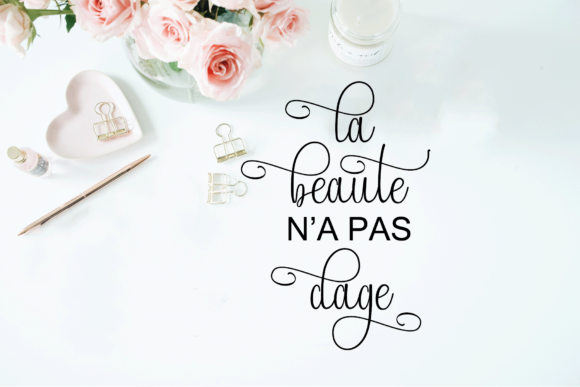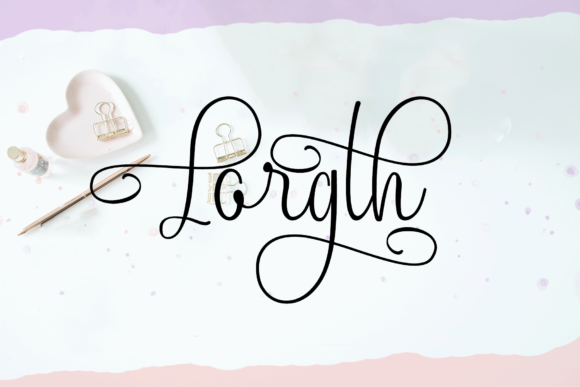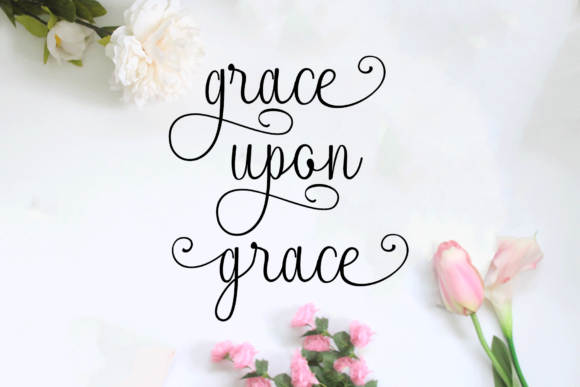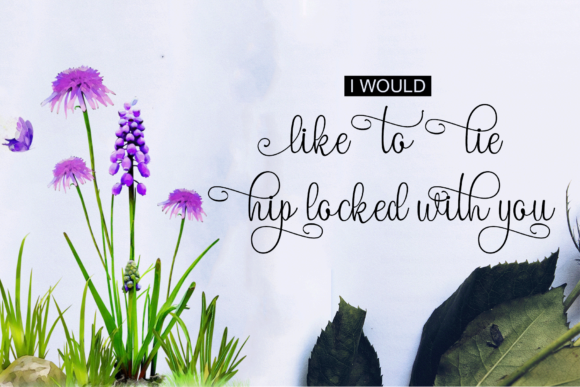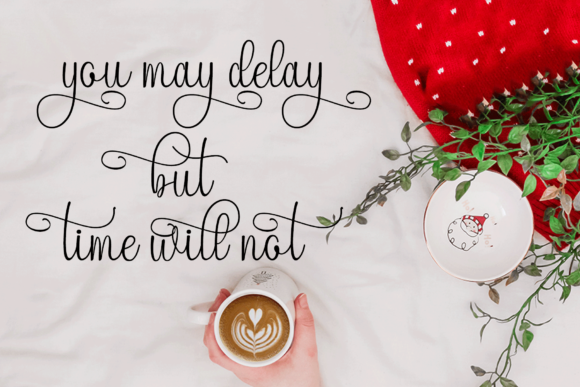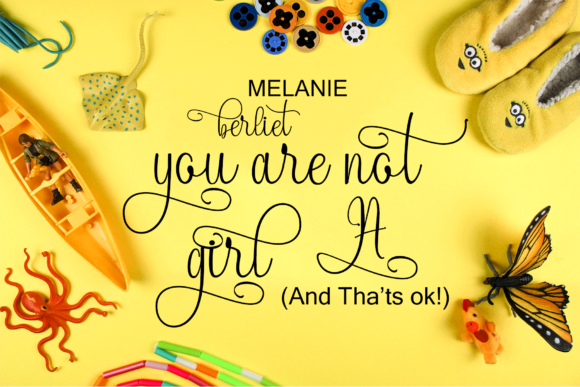
Introduction to Lazortha Font
Have you ever stared at a blank canvas, waiting for inspiration to strike, only to have your creativity sparked by a single, elegant letter? That’s exactly what happened to us when we discovered the Lazortha Font. This modern and unique handwritten font is a game-changer for designers looking to add a touch of sophistication to their creative projects.
| 📌 Product Name | Lazortha Font |
| 👤 Author | Rt Creative |
As a valuable design resource, Lazortha Font offers high-quality, customizable options that can elevate any design. Whether you’re working on a personal project or a commercial campaign, this font’s swashy look is sure to captivate your audience. And the best part? It’s available for free download with a transparent background, making it easy to integrate into your design workflow.
Key Features of Lazortha Font
- High-quality design resource ideal for creative projects, including graphics, logos, and typography.
- Unique, modern design with a transparent background, allowing for easy layering and customization.
- Perfect for use in digital design projects, such as web design, mobile app development, and social media graphics.
- Can be used in conjunction with other design elements, such as images and vectors, to create visually striking compositions.
Honest Review: Lazortha Font
I recently had the opportunity to work with the Lazortha Font, and I must say it’s been a pleasant experience. As a designer, I’m always on the lookout for high-quality design resources that can elevate my creative project to the next level.
Here are some things that I think work well with the Lazortha Font:
- ✨ The font is incredibly versatile, making it perfect for a wide range of design projects.
- ✨ The font’s transparent background feature allows for seamless integration with images and other design elements.
- ⚠️ The font’s character set is limited, which can make it difficult to use in certain design scenarios.
- ⚠️ The font’s style can be a bit too minimalist for some projects, which may not be suitable for all design styles.
Overall, I think the Lazortha Font is a solid choice for designers who are looking for a high-quality, versatile font for their creative project. While it may have some limitations, its benefits far outweigh its drawbacks.
Common Use Cases for Lazortha Font
The Lazortha Font is a versatile design resource that can be used in a variety of applications, including logos, business cards, and presentations. Its high-quality design and transparent background make it perfect for designers who want to create a professional-looking design without the hassle of custom font creation.